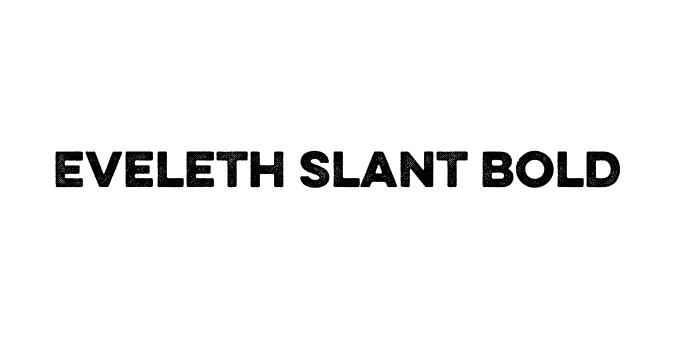
Eveleth Slant Bold
Designed by Ryan Martinson
| Font Name | Eveleth Slant |
| Category | Display / Letterpress / Vintage |
| Designer | Ryan Martinson |
Eveleth Slant Bold is a standout member of the Eveleth family, a high-resolution letterpress font system designed by Ryan Martinson of Yellow Design Studio. This specific weight captures the authentic, weathered charm of vintage wood block printing with a dynamic slanted orientation. Its high level of detail ensures that the distressed textures look crisp and realistic even at large sizes, making it a favorite for designers seeking a rugged, hand-crafted aesthetic.
The font is part of a comprehensive collection that features multiple sub-families, each with its own unique texture and character. Eveleth Slant Bold is particularly effective for projects that require a sense of energy and history simultaneously. Its non-repetitive distress patterns ensure that the typography feels organic and genuine, avoiding the mechanical look common in many digital distressed fonts.
Eveleth Slant Bold Best Uses
Perfect for creating rugged, heritage-style corporate identities and emblems.
Ideal for vintage-themed t-shirt graphics, patches, and clothing labels.
Excellent for organic, artisanal, or craft product packaging and labels.
Adds a bold, energetic, and high-impact look to event flyers and promotional posters.